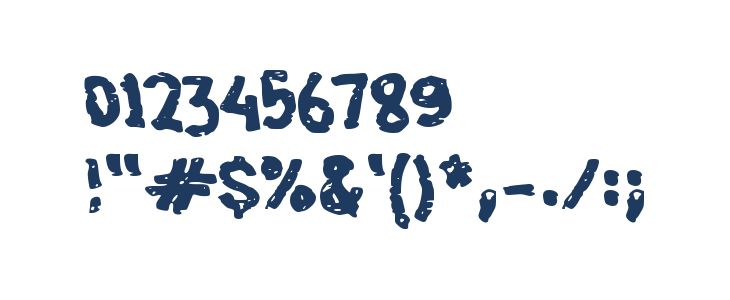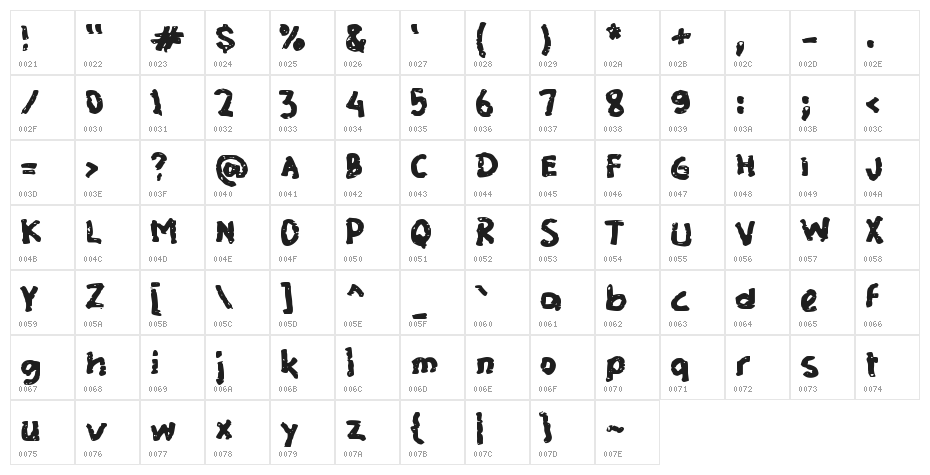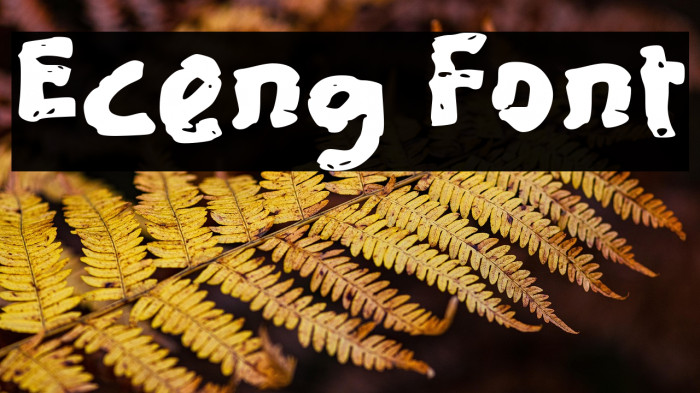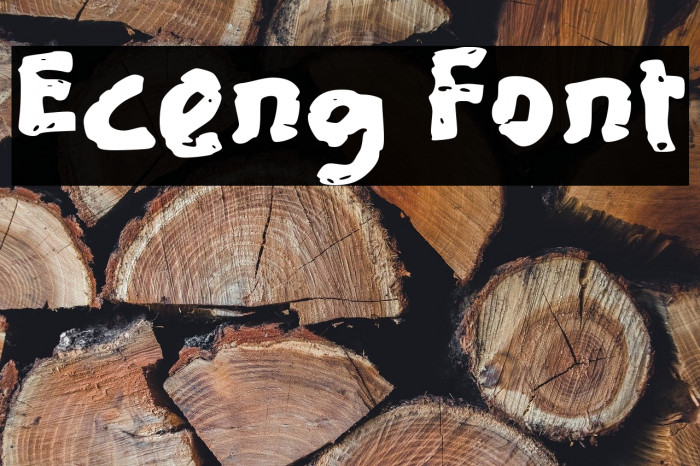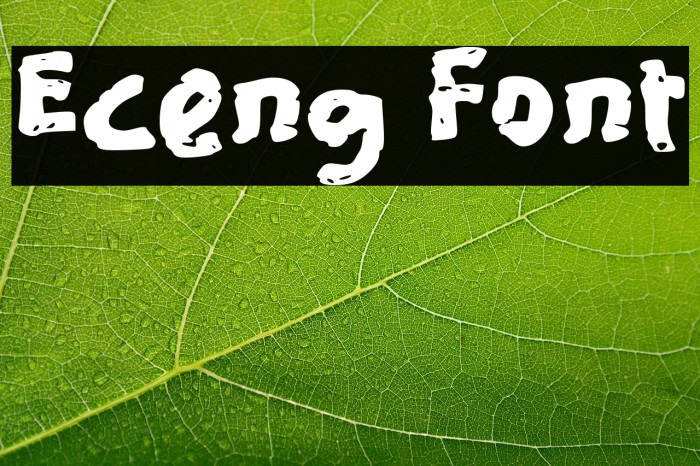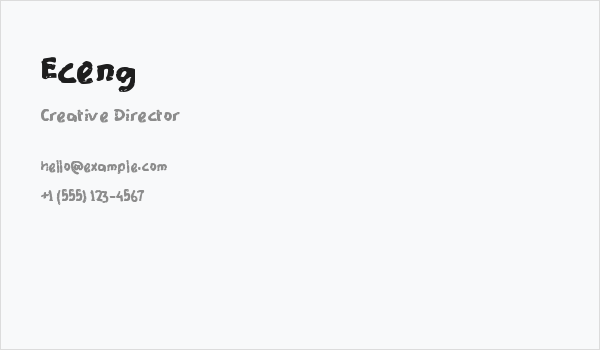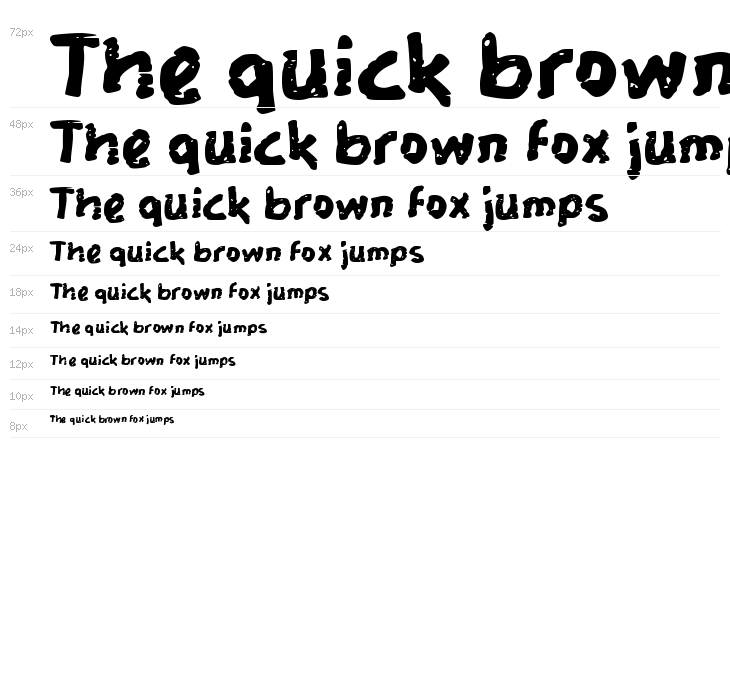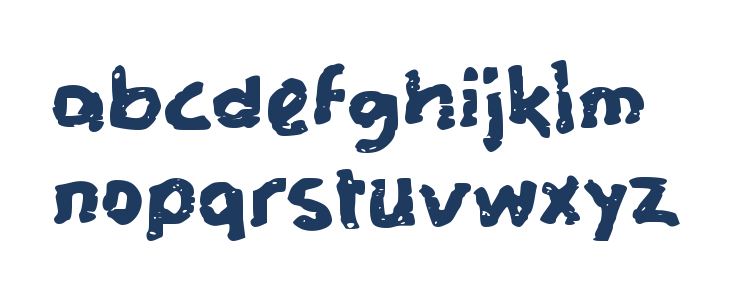
Eceng Font
Eceng Description
This font exhibits a playful and bold style, characterized by its irregular, hand-drawn appearance. The letters are thick and uneven, with a rough texture that gives them a dynamic and energetic feel. The uppercase and lowercase letters maintain a consistent style, with quirky details that add to the font's charm. Numbers and special characters follow the same design principles, ensuring a cohesive look across all elements. This font's unique and informal style makes it stand out, perfect for projects that require a touch of creativity and fun.
| Proposed Projects | Ideal for children's books, comic strips, playful branding, and creative posters. |